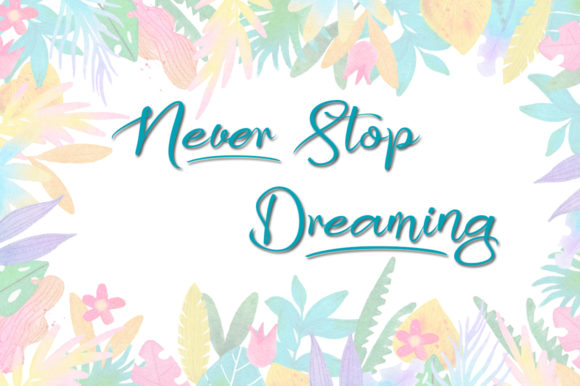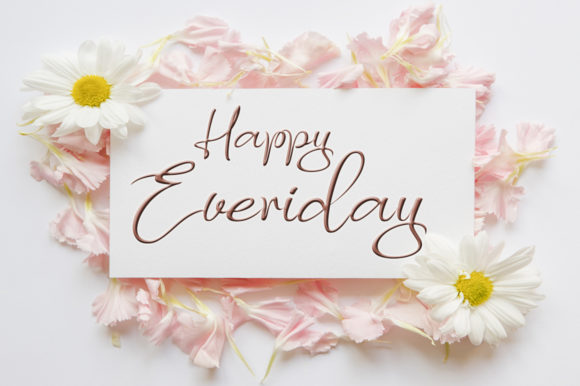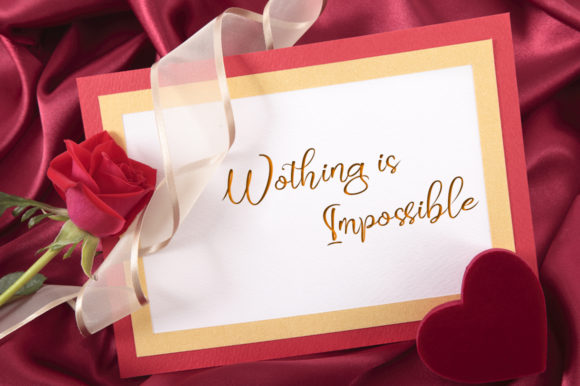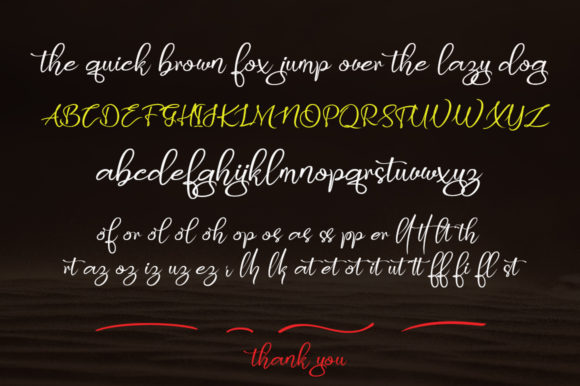
Introducing Butterly Script Font: Elevate Your Designs with Elegance
Are you a designer or crafter looking for a font that can add a touch of sophistication and whimsy to your creative projects? Look no further than Butterly Script Font. This beautiful, handwritten font is designed to bring a sense of delicacy and elegance to your designs, making it perfect for a wide range of applications.
The Beauty of Butterly Script Font
Butterly Script Font is a delicate, elegant, and flowing handwritten font that is sure to capture the attention of your audience. Its beautiful and well-balanced characters make it a versatile font that can be used in a variety of design contexts, from wedding invitations and branding materials to social media graphics and craft projects.
What Makes Butterly Script Font Special?
- Unique Character Set: Butterly Script Font boasts a unique character set that is both elegant and playful, making it perfect for designs that require a touch of sophistication.
- Well-Balanced Characters: The font’s characters are carefully crafted to ensure that they are well-balanced and visually appealing, making it easy to read and understand.
- Flowing Script: The font’s flowing script style gives it a sense of movement and fluidity, making it perfect for designs that require a sense of dynamism.
How to Use Butterly Script Font in Your Designs
Butterly Script Font is incredibly versatile and can be used in a wide range of design contexts. Here are a few ideas to get you started:
- Wedding Invitations: Use Butterly Script Font to create beautiful and elegant wedding invitations that set the tone for a special day.
- Branding Materials: Add a touch of sophistication to your branding materials, such as business cards and letterheads, with Butterly Script Font.
- Social Media Graphics: Use Butterly Script Font to create eye-catching social media graphics that showcase your brand’s personality.
- Craft Projects: Add a personal touch to your craft projects, such as handmade cards and gift tags, with Butterly Script Font.
Tips for Getting the Most Out of Butterly Script Font
Here are a few tips for getting the most out of Butterly Script Font:
- Experiment with Different Sizes: Butterly Script Font looks great in a variety of sizes, so don’t be afraid to experiment to find the perfect size for your design.
- Pair with Other Fonts: Butterly Script Font pairs well with a variety of other fonts, so try pairing it with a bold font for added contrast.
- Use in Combination with Images: Butterly Script Font looks great in combination with images, so try using it to add text to your favorite photos.
In conclusion, Butterly Script Font is a beautiful and elegant handwritten font that is perfect for designers and crafters looking to add a touch of sophistication to their creative projects. Its unique character set, well-balanced characters, and flowing script style make it a versatile font that can be used in a wide range of design contexts. Whether you’re creating wedding invitations, branding materials, social media graphics, or craft projects, Butterly Script Font is sure to elevate your designs and make them come alive.